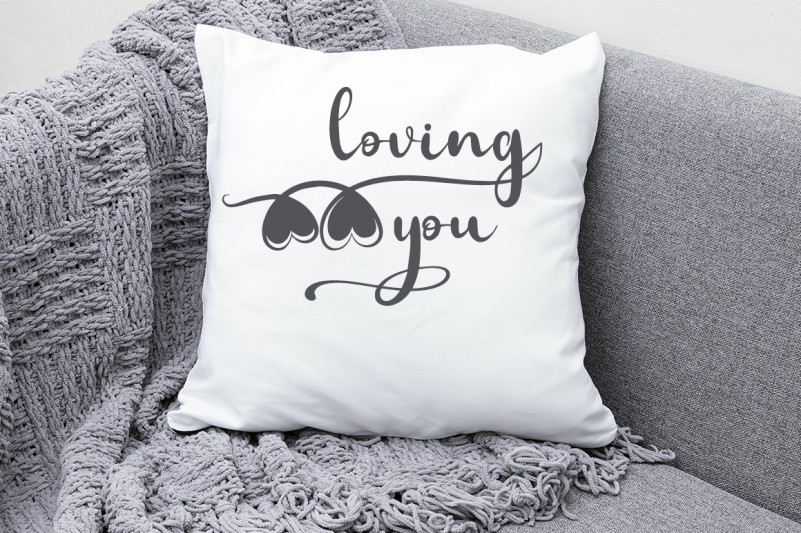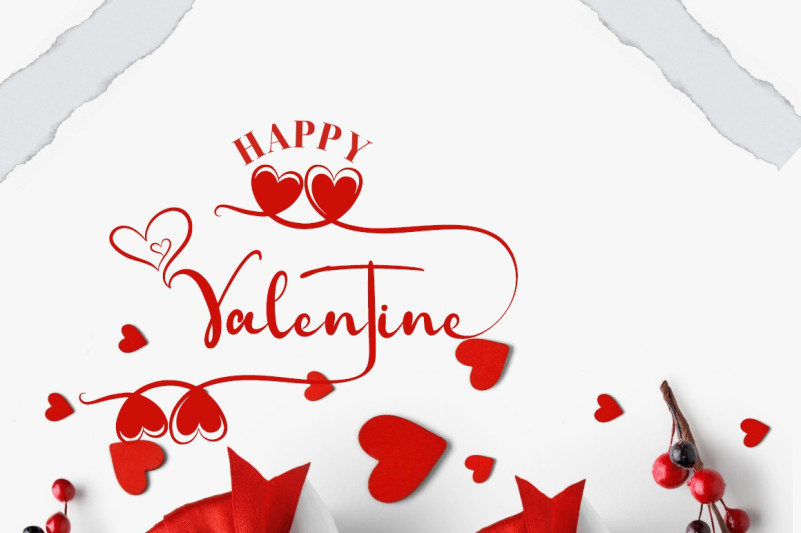
Valentina Font
Valentina Script Font, is perfect for product packaging, branding projects, magazines, social media, weddings, or just used to express words above the background.